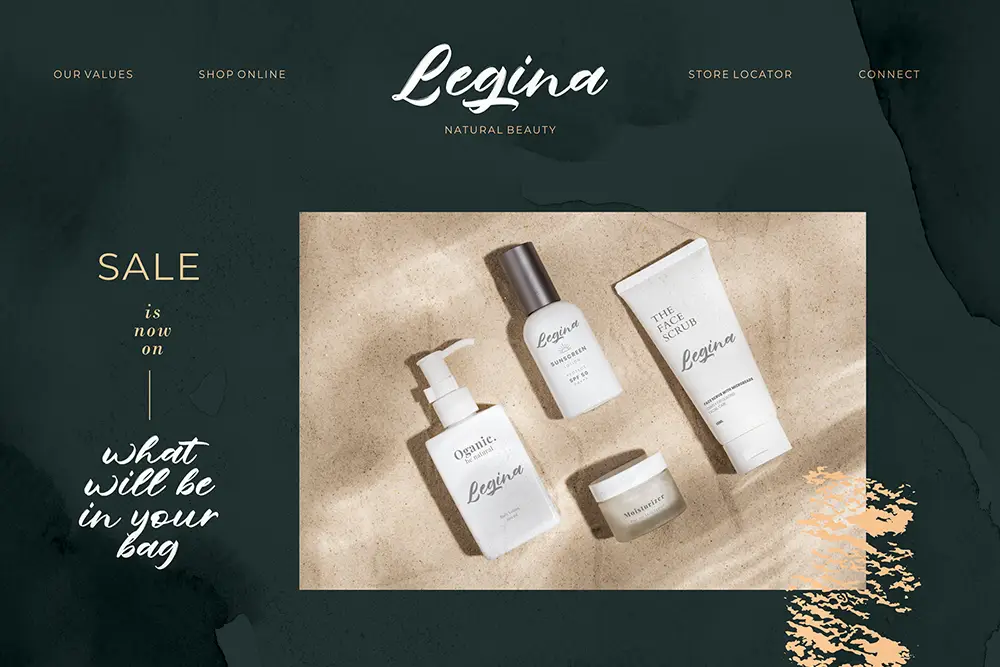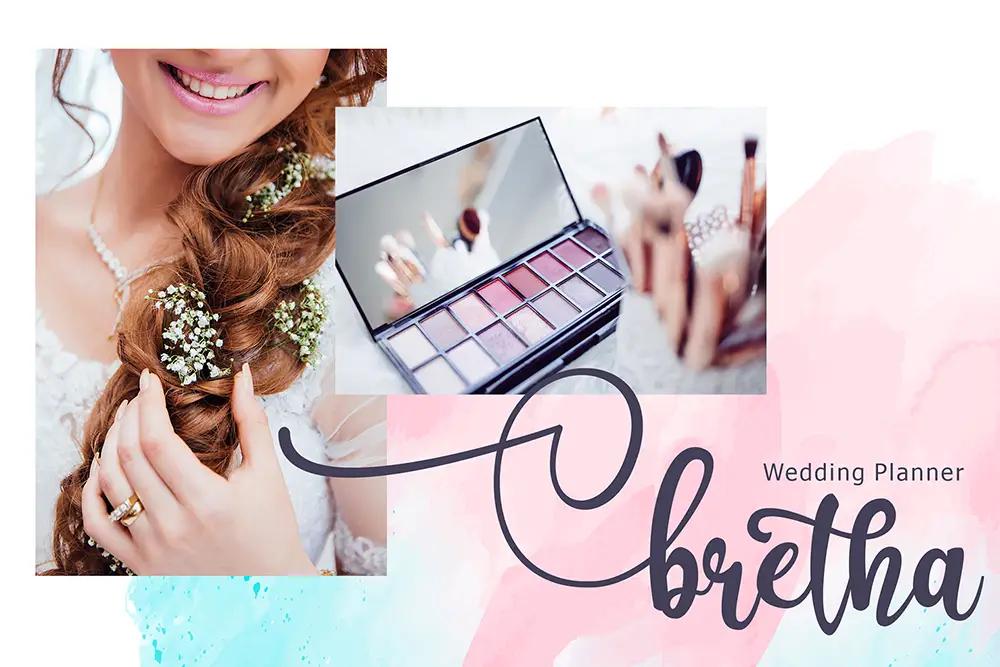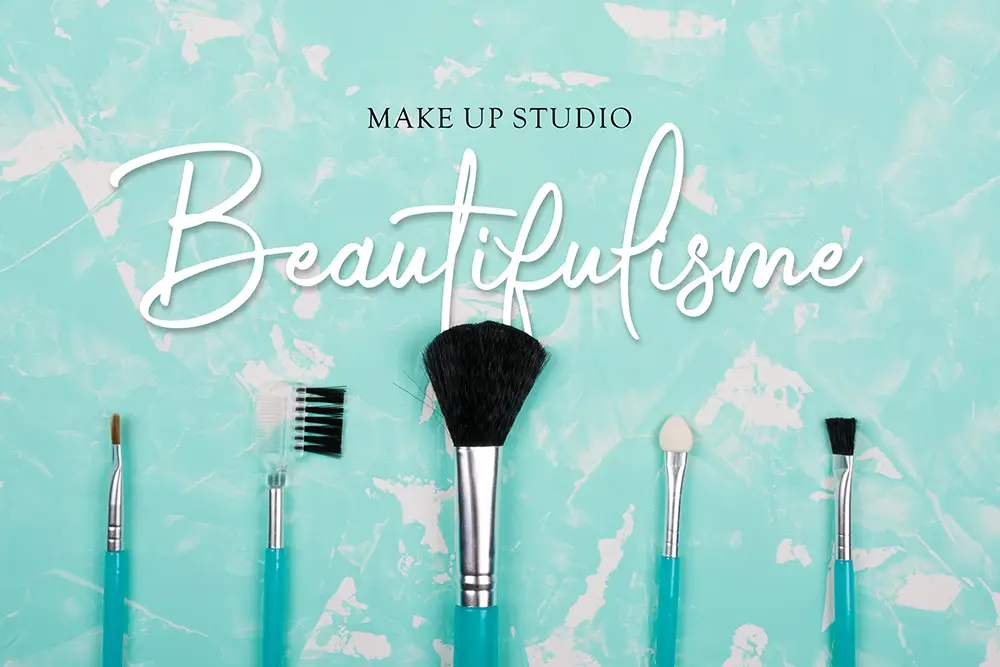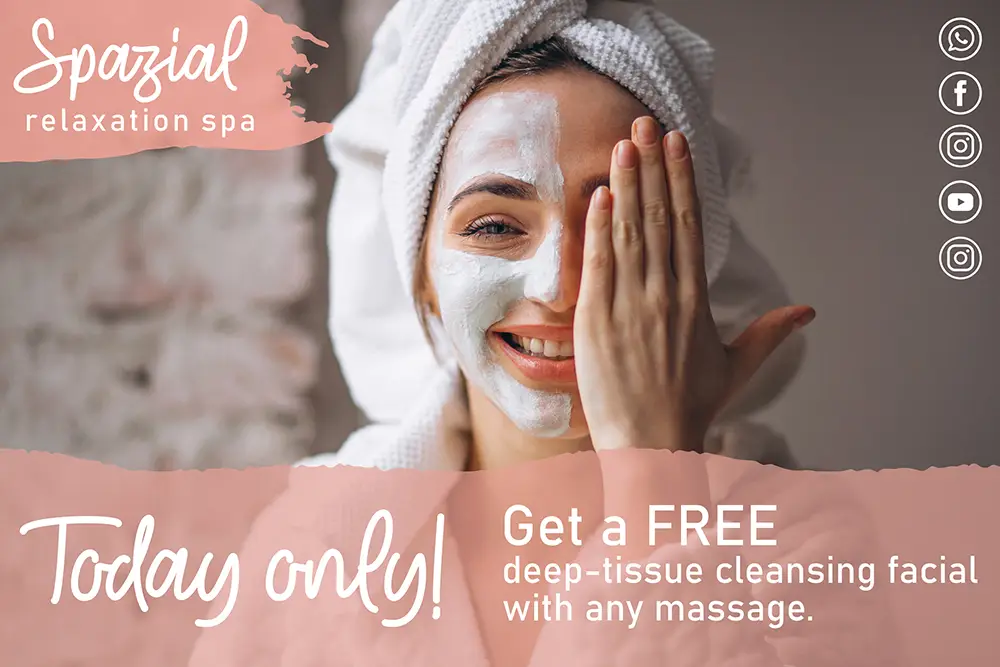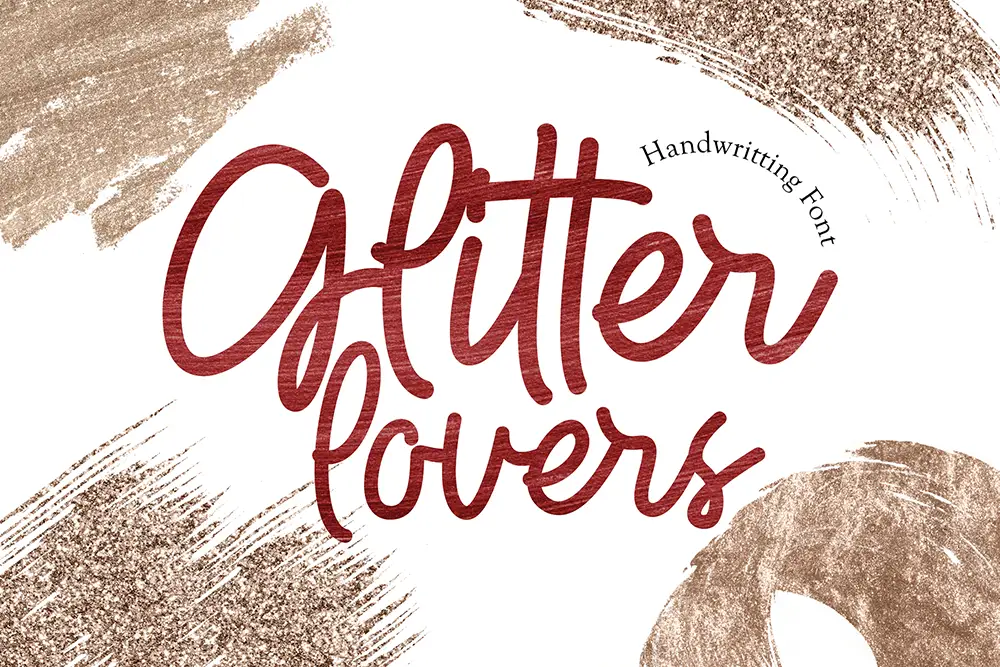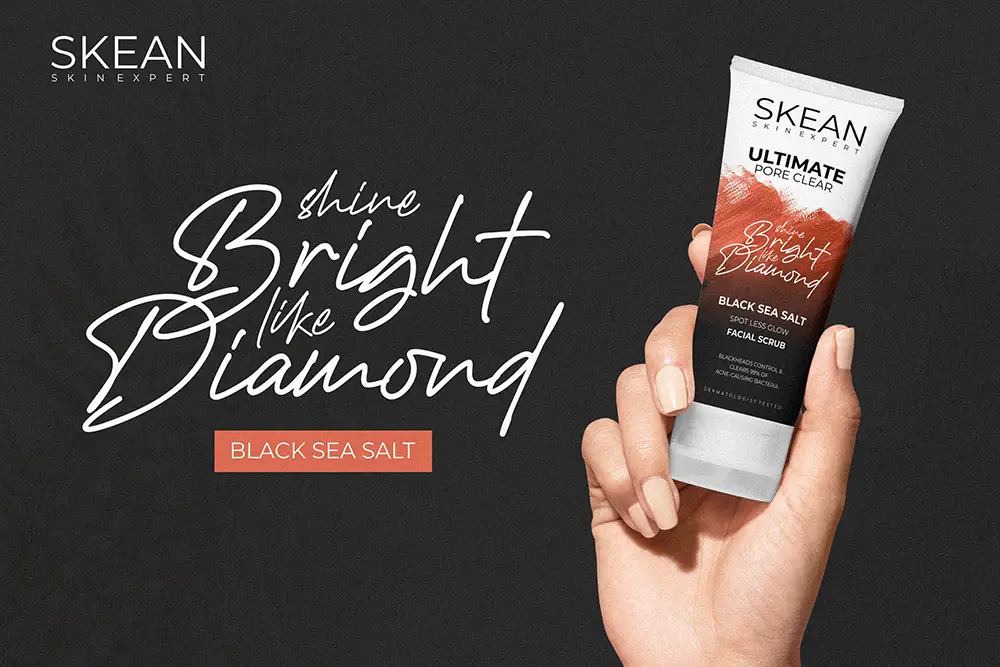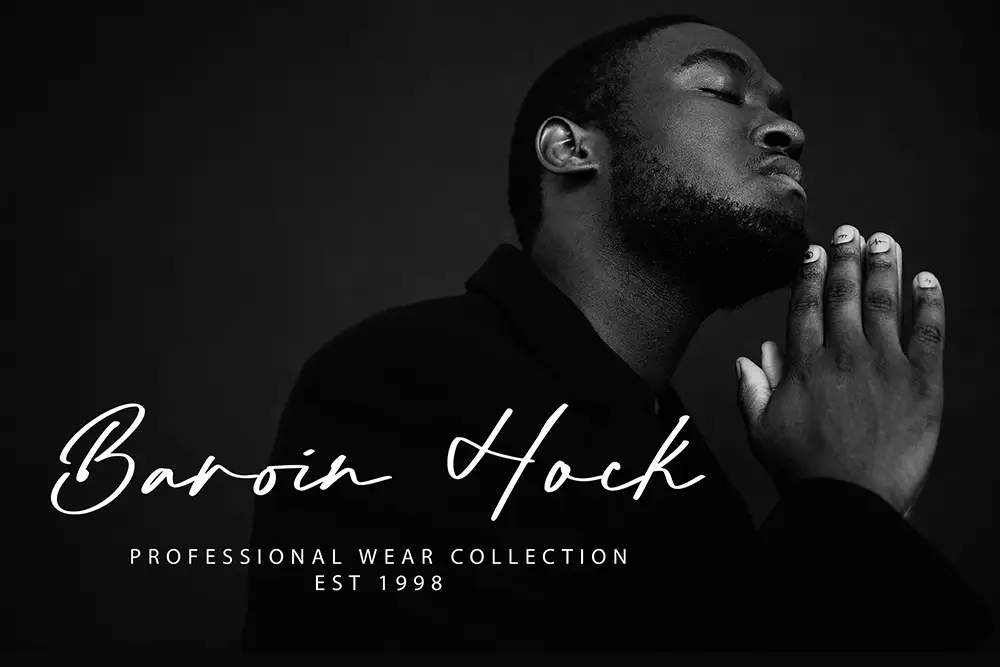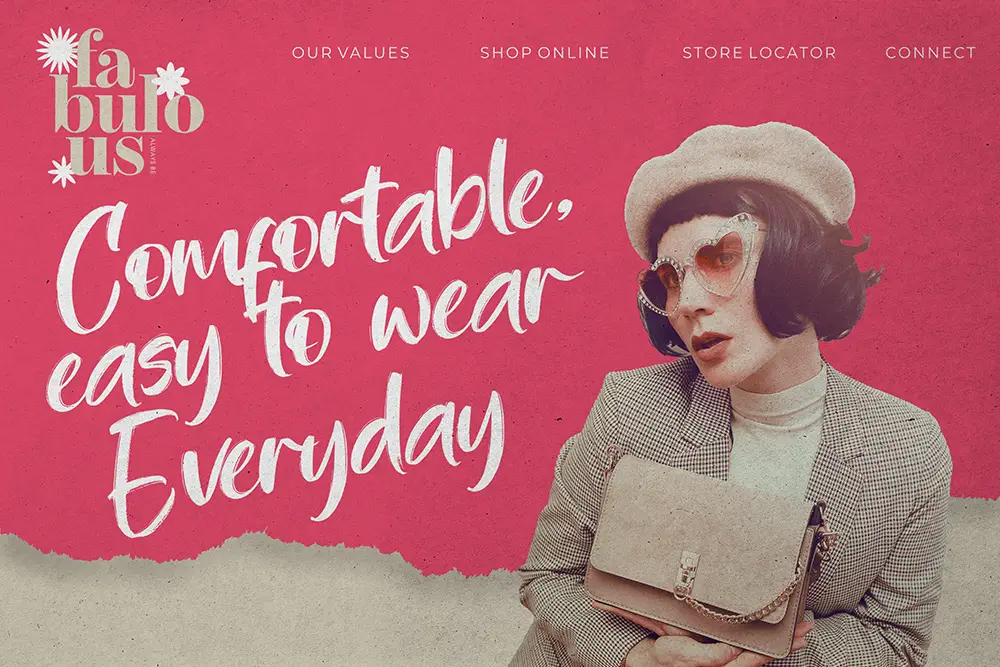
Picture this: you’ve poured your heart into launching a new skincare line. The formula is top-notch, the packaging feels premium, and your campaign photos glow. Yet, when your ads go live, something is missing. The logo looks generic, and customers scroll past without a second glance. That’s the hidden trap many beauty entrepreneurs fall into. In the world of beauty, design is perception. The wrong typography can drag down even the most luxurious product. But the right fonts for beauty brands? They don’t just decorate — they elevate.
99designs once wrote that fonts are one of the strongest branding signals. In beauty, where emotion drives purchases, typography sets the stage for trust, elegance, and aspiration.
Here are 10 curated fonts that can turn your beauty branding from ordinary into unforgettable. Each has its own personality — just like the beauty lines they’ll represent.
Organic, raw, yet refined — Astogria Bejha feels perfect for natural skincare or eco-conscious makeup brands. The strokes look alive, giving packaging an authentic but stylish vibe.
Romantic and feminine, Augustha looks like it belongs on a wedding invitation or a luxury fragrance bottle. For beauty brands, it adds intimacy and charm.
Gabrietha feels like a designer’s signature. Sleek and confident, it’s ideal for spas, makeup artists, or perfume brands wanting to exude exclusivity.
Playful and chic, Glitter Lovers is perfect for Gen Z-focused beauty lines — lip glosses, colorful palettes, shimmering eye shadows. It sparkles with energy while staying stylish.
Think Chanel or Dior vibes — Kastroz is bold, timeless, and rooted in luxury tradition. It works beautifully for skincare jars, editorial ads, and logo marks that need authority.
This font combines modern grace with personality. Radditya Signature works for boutique cosmetics, haircare, or spas looking for elegance without losing authenticity.
Delicate yet impactful, Hadejah is the kind of font you’d expect on luxury lipstick or premium skincare branding. It elevates with just a glance.
Khaleiyfa blends exotic elegance with modern branding. A great choice for halal cosmetics, spa retreats, or fragrance lines that want to signal sophistication.
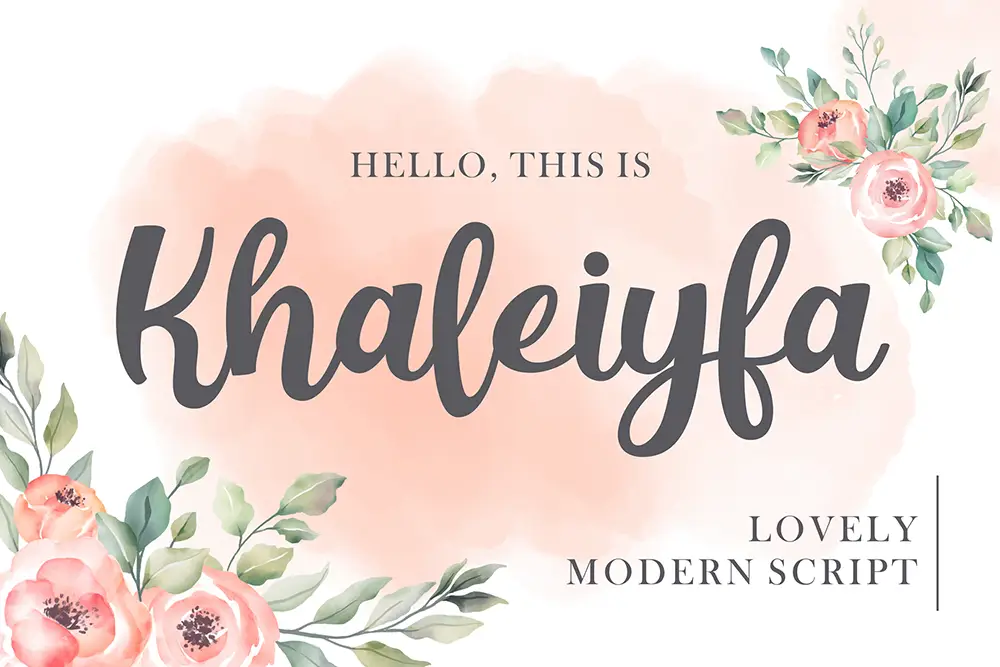
Two fonts in one: a serif for structure, a script for elegance. Viktoria is perfect for beauty brands that want harmony across logos, packaging, and social media.
Raw and natural, Shutter Breathing is ideal for clean beauty lines and eco-friendly makeup. It communicates honesty while staying stylish.
Picking fonts doesn’t have to be intimidating. The rule is simple:
Most strong beauty brands combine two: a serif to anchor their identity, a script to soften it. Think of it like makeup — foundation for structure, highlighter for glow.
After working with countless designers and founders, one thing is clear: typography in beauty branding is not just an accessory — it’s strategy in disguise. Fonts carry emotion before the product even speaks.
Think of a luxury skincare jar on the shelf. You don’t smell it, you don’t test it yet — but the font on the label already tells you if it’s premium, playful, or mass-market. Typography becomes the silent ambassador of your brand.
As design thinker Don Norman wrote in Emotional Design:
“We don’t just use products, we experience them. Every detail, even type, affects how we feel.”
For beauty entrepreneurs, this is gold. A well-chosen serif font can suggest timeless elegance, while a flowing script adds intimacy and warmth. Together, they form an emotional handshake with your audience.
We’ve also learned that the most successful beauty brands don’t chase trends blindly. They align typography with values. Minimalist brands lean toward clean sans-serif choices. Heritage-inspired beauty lines embrace vintage serifs. Organic-focused labels pick natural brush scripts.